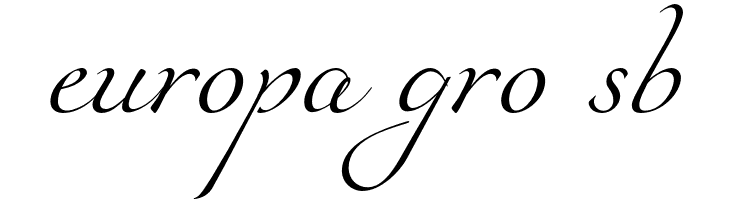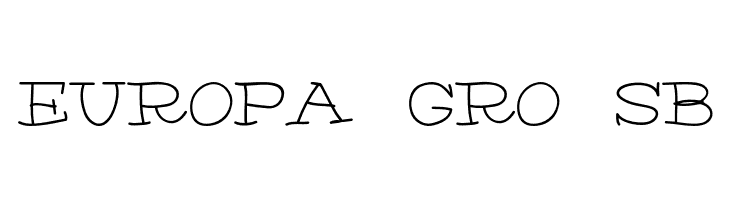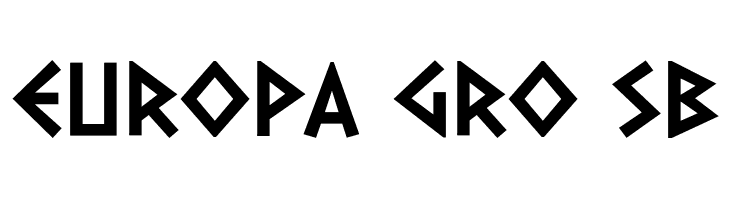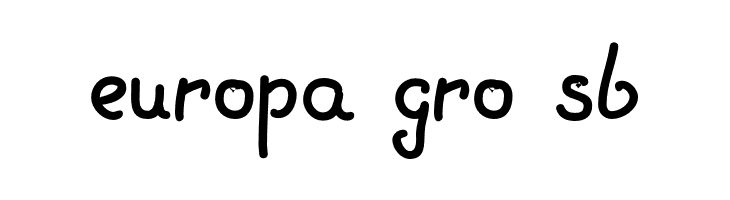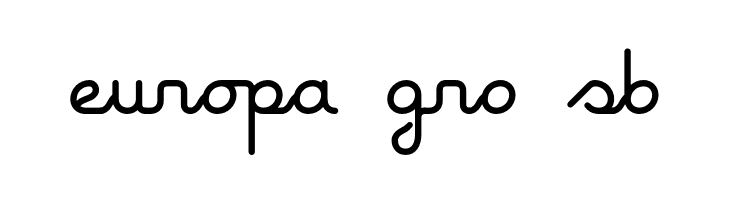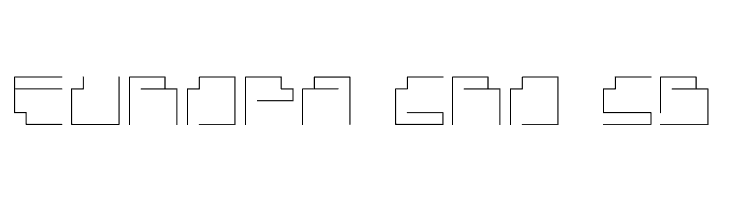
An elegant script font with flowing, cursive strokes and sophisticated design.
( AdultHuman - Alex - twitter.com/AdultHumanType )
A playful, hand-drawn font with whimsical, irregular strokes.
( JBFoundry - Jean Boyault - jean.boyault.pagesperso-orange.fr/ )
An ultra-thin, elongated font with a whimsical, modern style.
( K-Type - Keith Bates - www.k-type.com/ )
A bold, geometric font with sharp angles and a futuristic aesthetic.
( Manuel Lage - napojozare.jimdo.com )
A playful, handwritten font with thin, irregular strokes and a casual style.
( Nermin Kahrimanovic - www.behance.net/nermink )
A playful, bold font with rounded edges and a hand-drawn feel.
( Philippe Cochy - pecita.eu )
A playful, modern font with geometric and cursive elements.
( Pisto Casero - Gilberto Moya Perona - www.pistocasero.com )
A geometric, minimalist font with a wireframe design and uniform line weight.
( Pisto Casero - Gilberto Moya Perona - www.pistocasero.com )
A bold, 3D geometric font with an origami-like design.
( Pisto Casero - Gilberto Moya Perona - www.pistocasero.com )
A geometric, cube-like font with a futuristic and digital aesthetic.